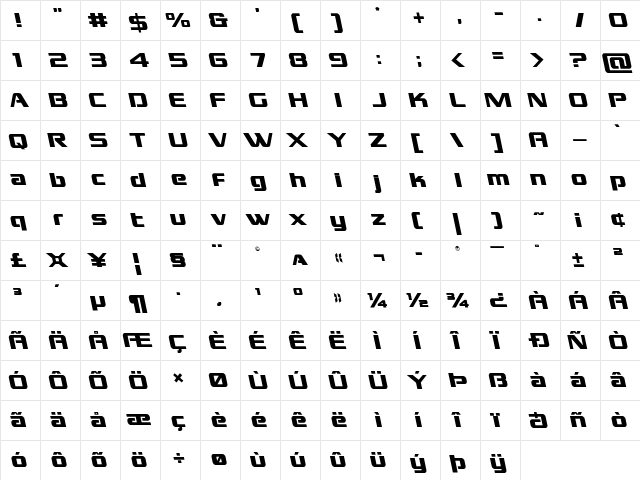
Grand National Leftalic Italic Font Preview
Grand National Leftalic Italic
Grand National Leftalic Italic Font Details
Design Context for Grand National Leftalic Typeface
Grand National Leftalic offers clean, dependable letterforms without strong stylistic allegiance, making it a practical choice for designers who need flexibility. Its italic angle brings a sense of urgency and motion to the letterforms.
Pro Tip: Use Grand National Leftalic for emphasis, pull quotes, and subheadings where its slanted energy can add rhythm to the layout.